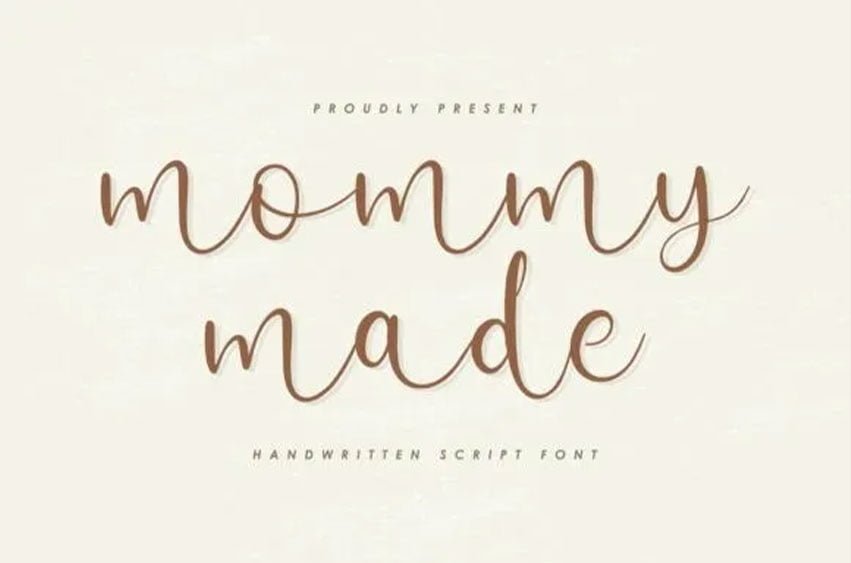
Mommymade Font is a playful handwritten script font. Mommymade is perfect for product packaging, branding project, magazines, social media, weddings, or just used to express words above the background.